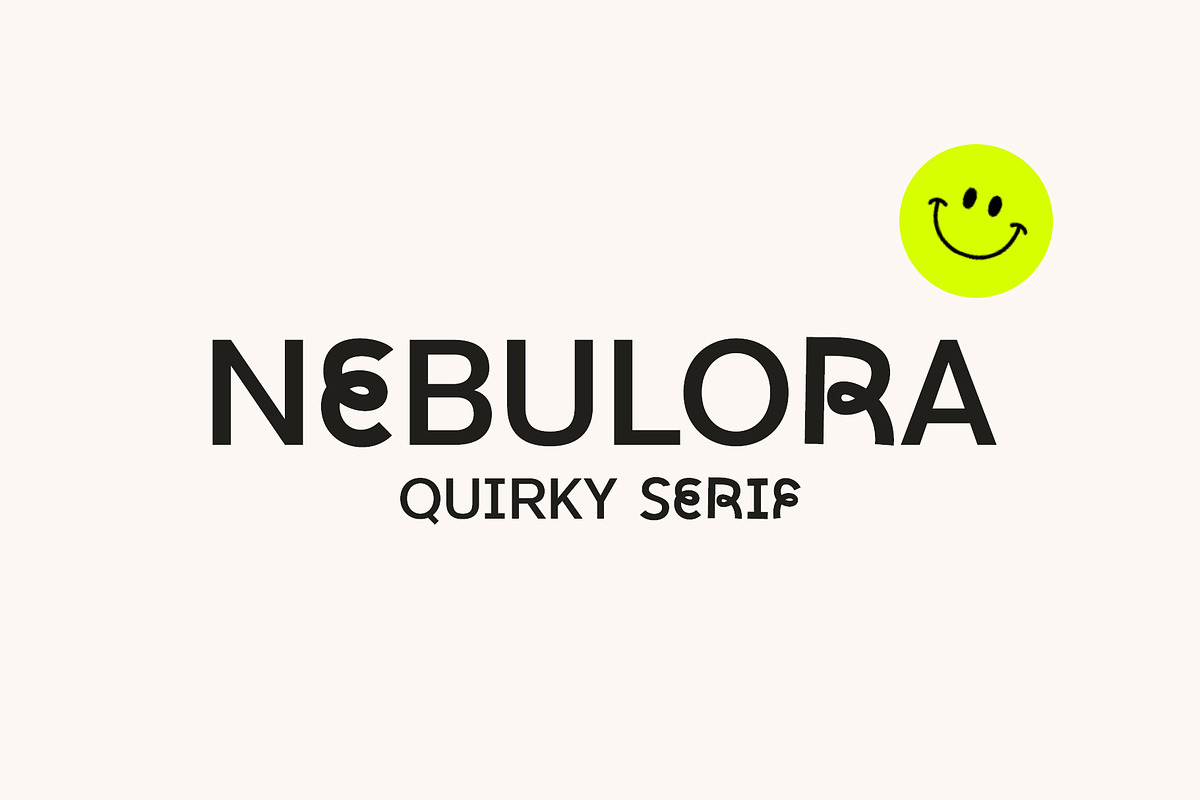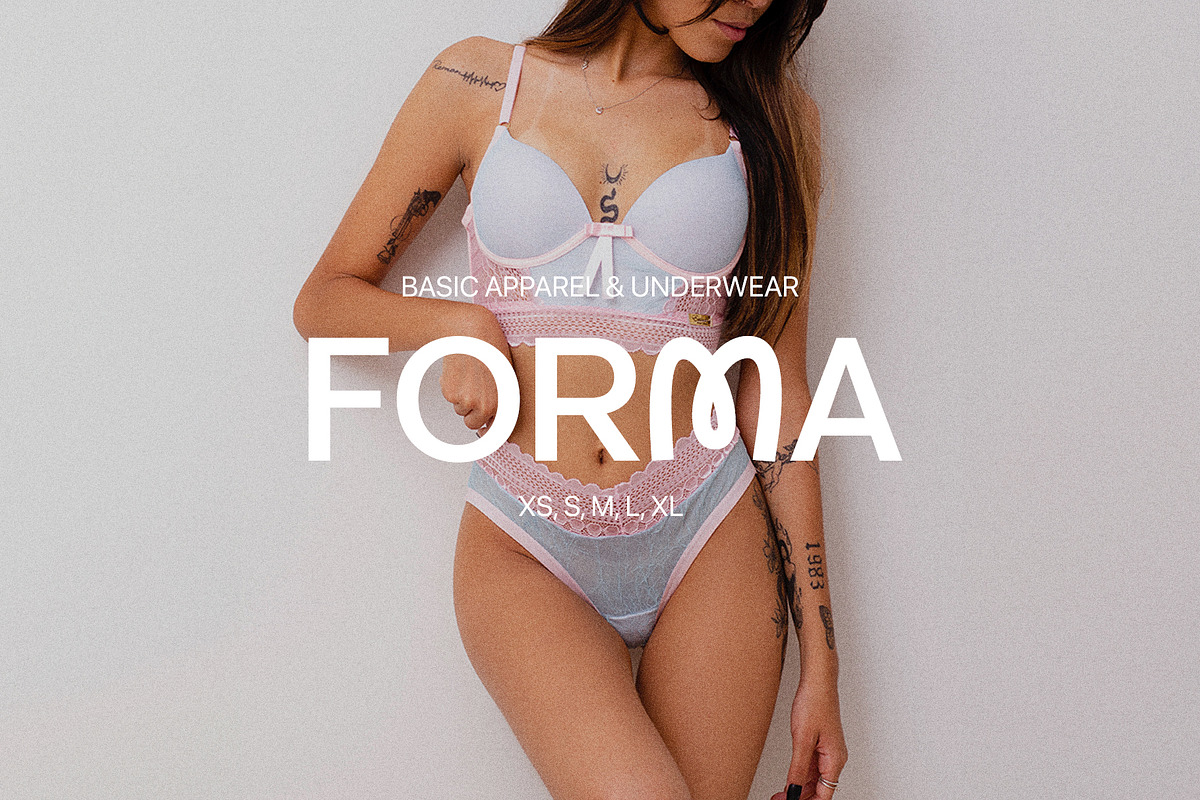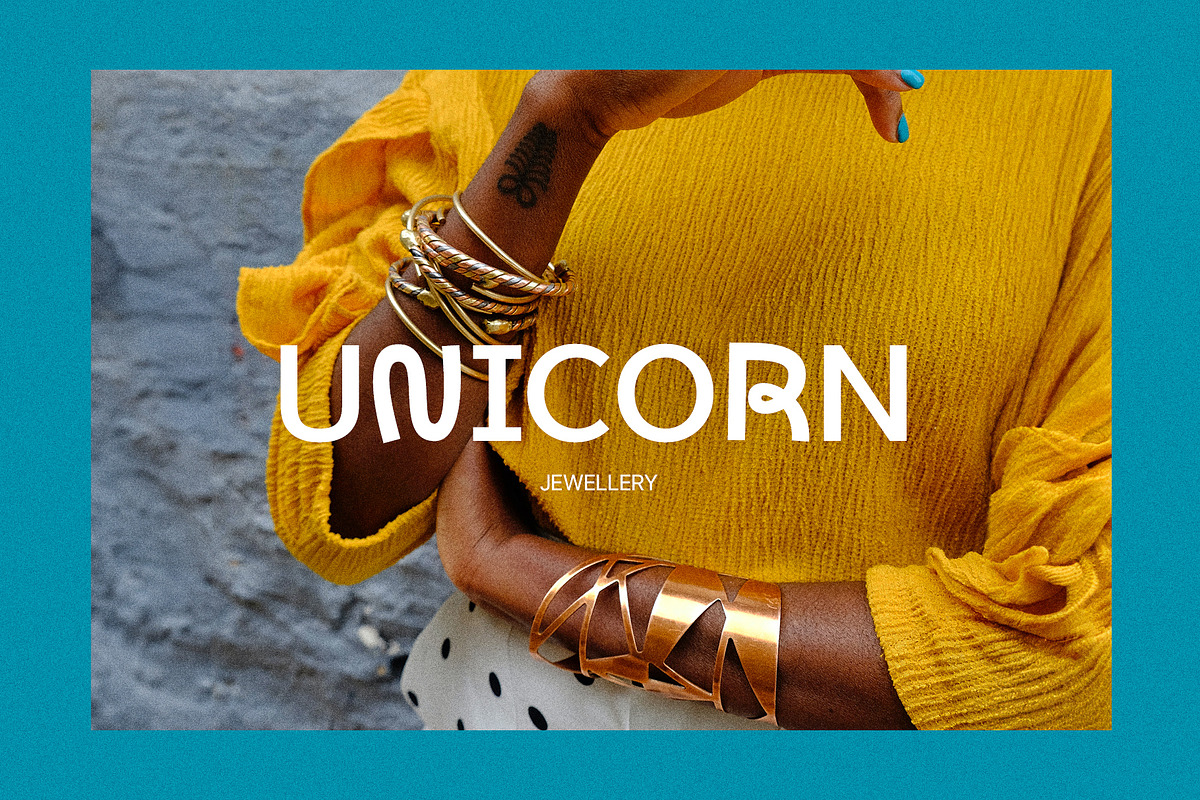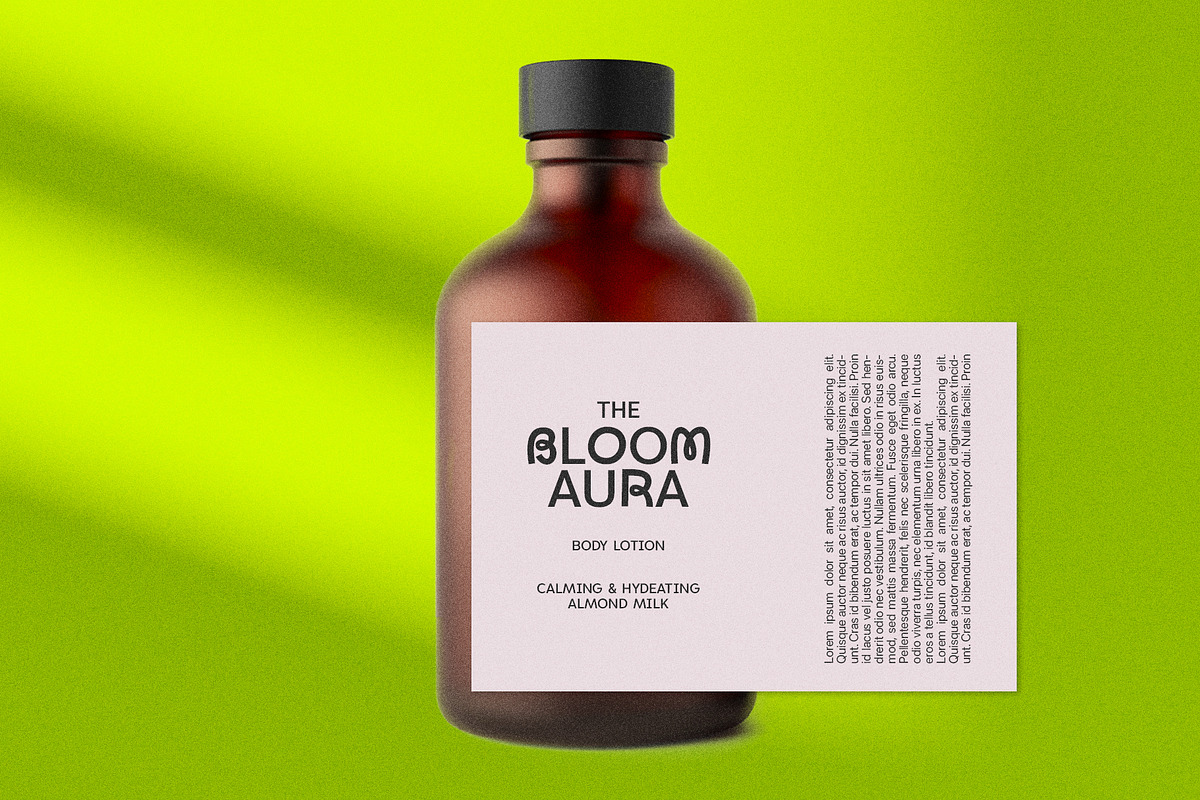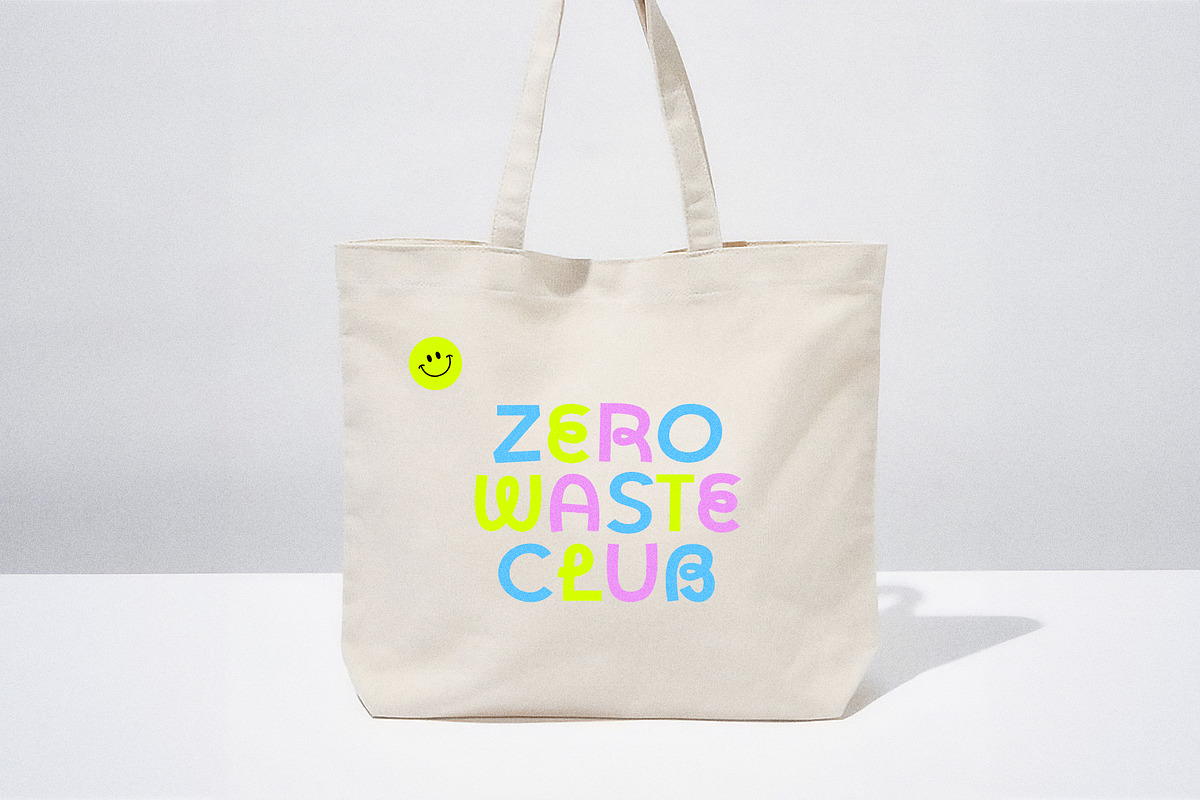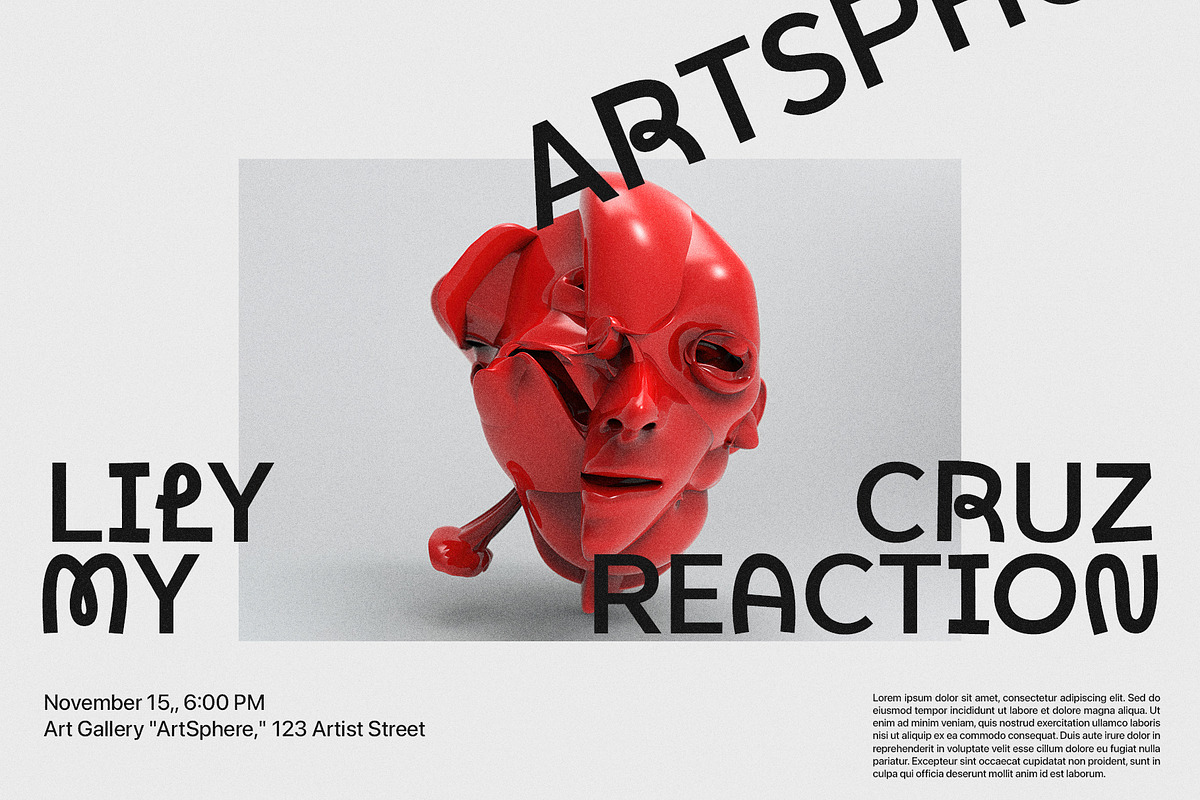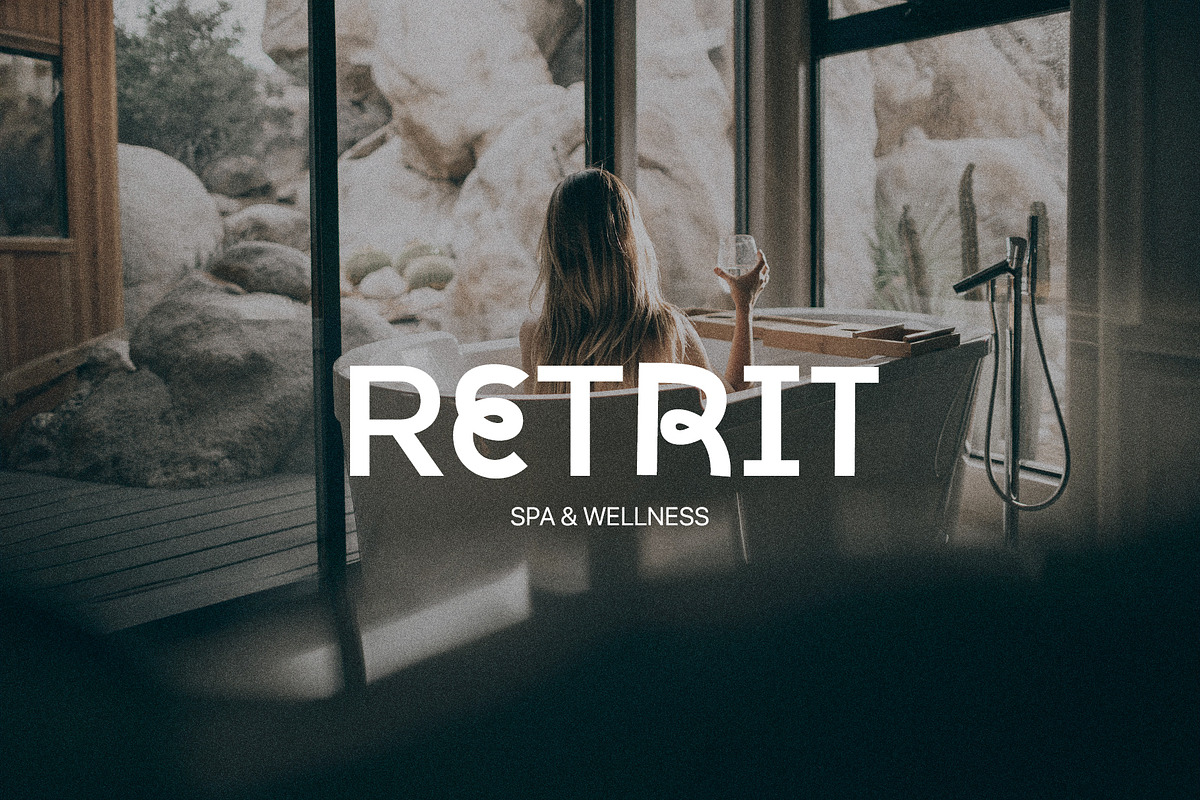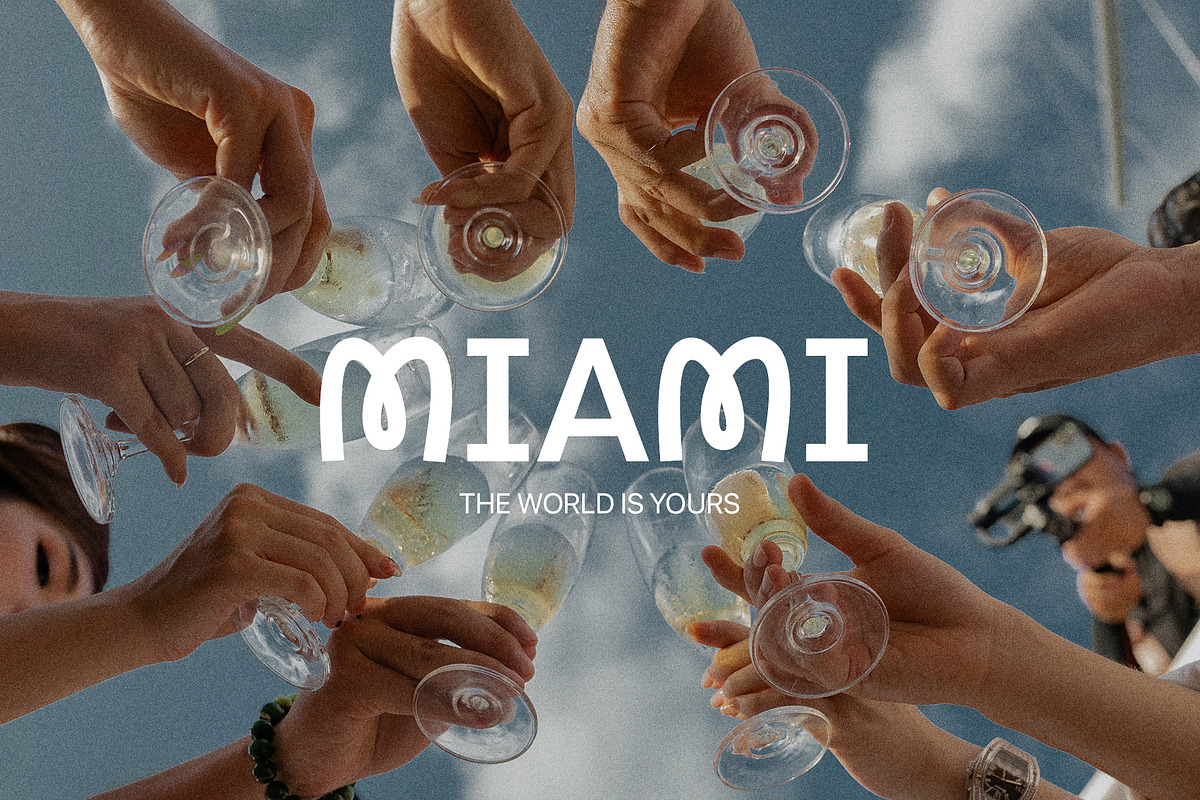
Nebulora Quirky & Playful Sans
Nebulora is a Quirky & Playful Sans. Ideal for advertising, headlines, editorial design, branding, and posters.
Nebulora Font Features:
- CAPS for normal sans
- lowers for Quirky sans
- Multilingual Characters AÁĂÂÄÀĀĄÅÃÆBCĆČÇĊDÐĎĐEÉĚÊËĖÈĒĘẼFGĞĢĠḠHĦIIJÍÎÏİÌĪĮĨJKĶLĹĽĻŁMNŃŇŅÑ OÓÔÖÒŐŌØÕŒPÞQRŔŘŖSŚŠŞȘẞTŤŢȚUÚÛÜÙŰŪŲŮŨVWẂŴẄẀXYÝŶŸỲỸZŹŽŻ